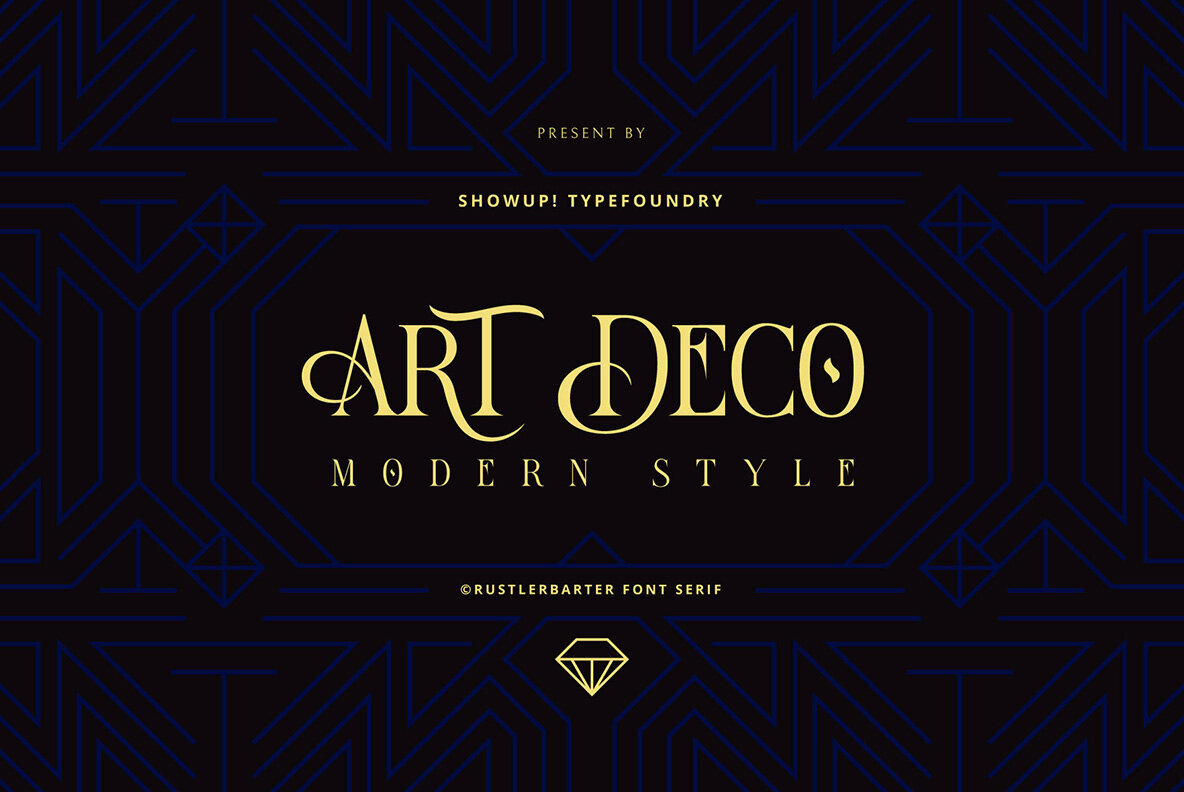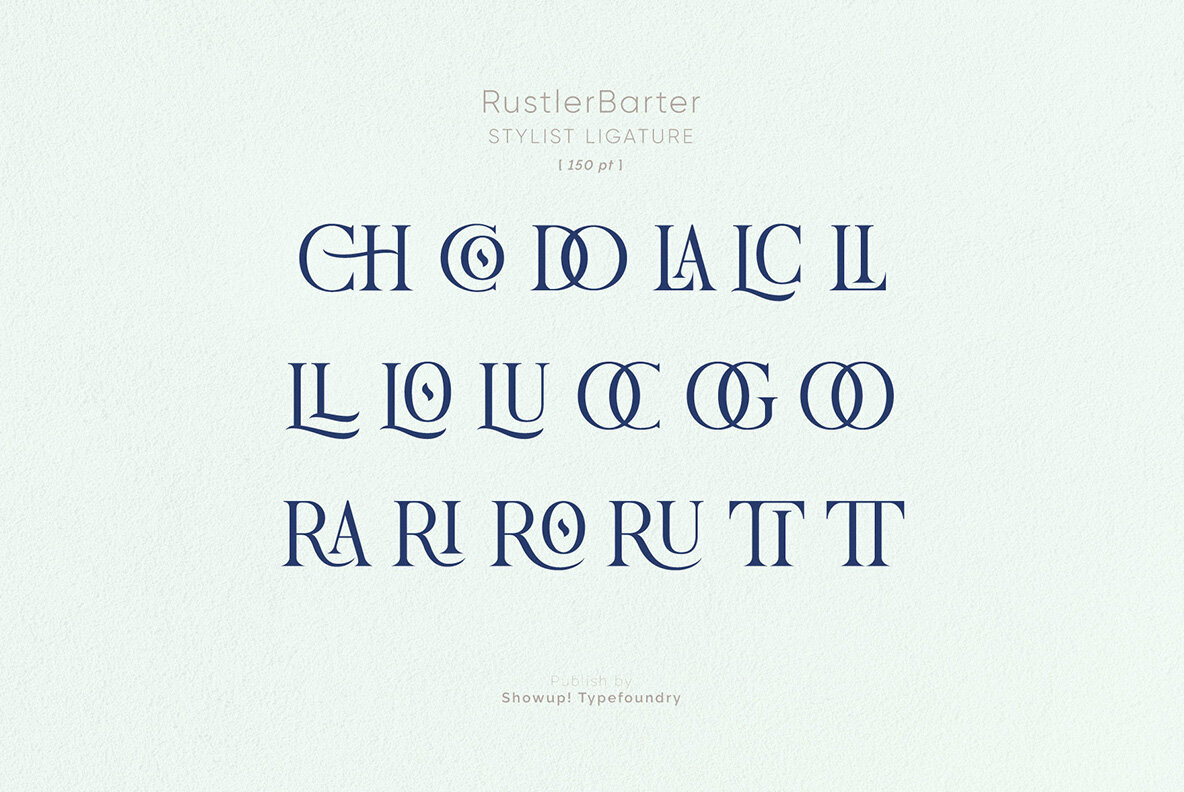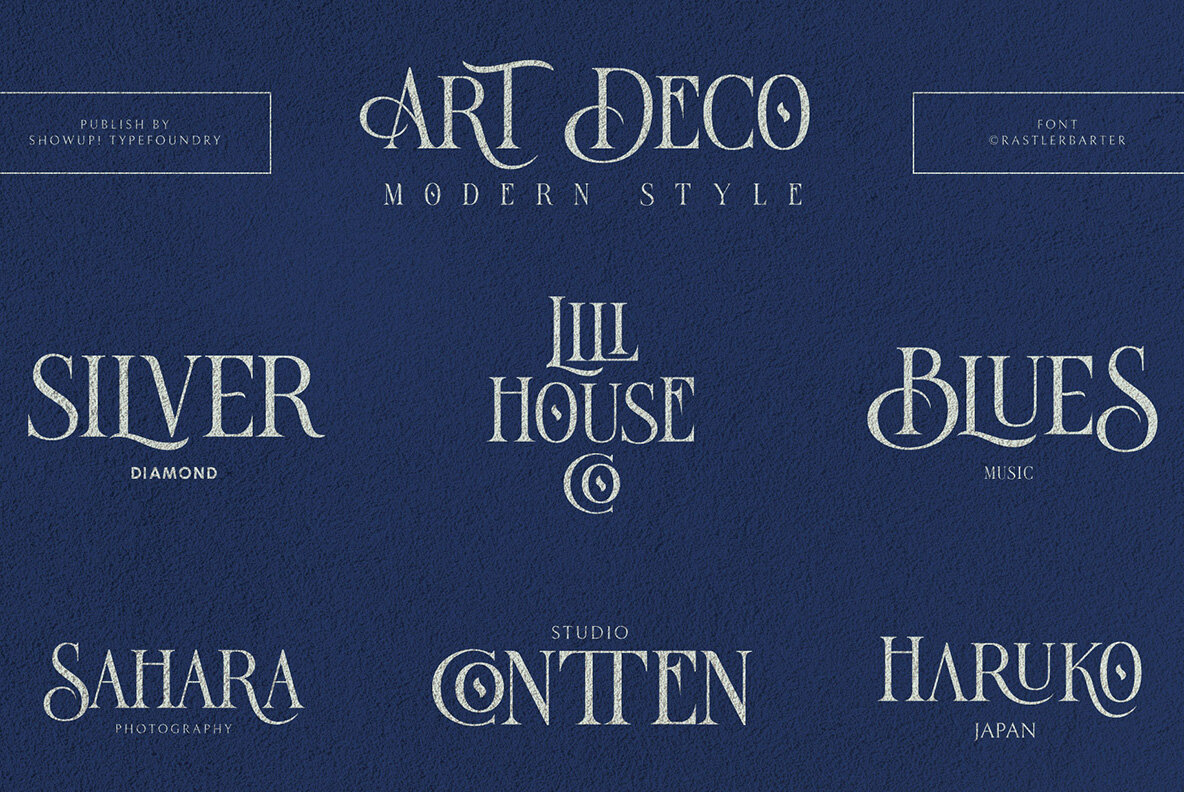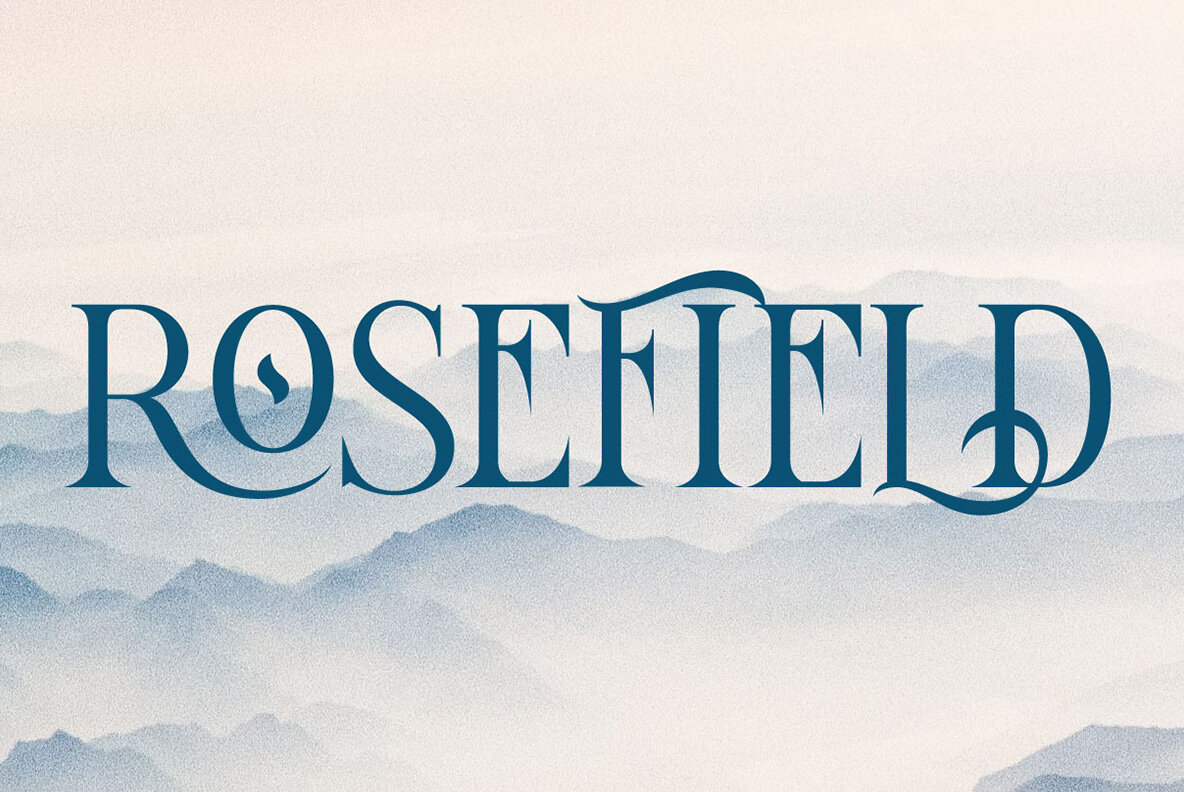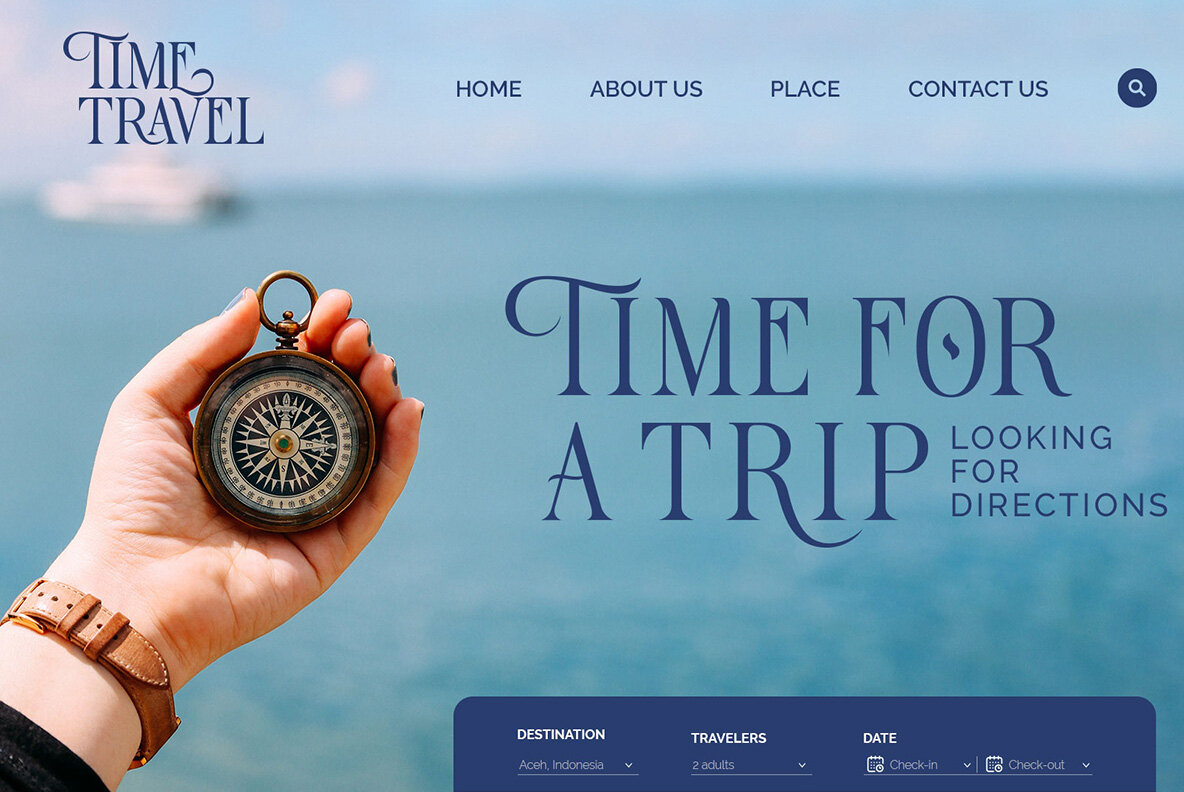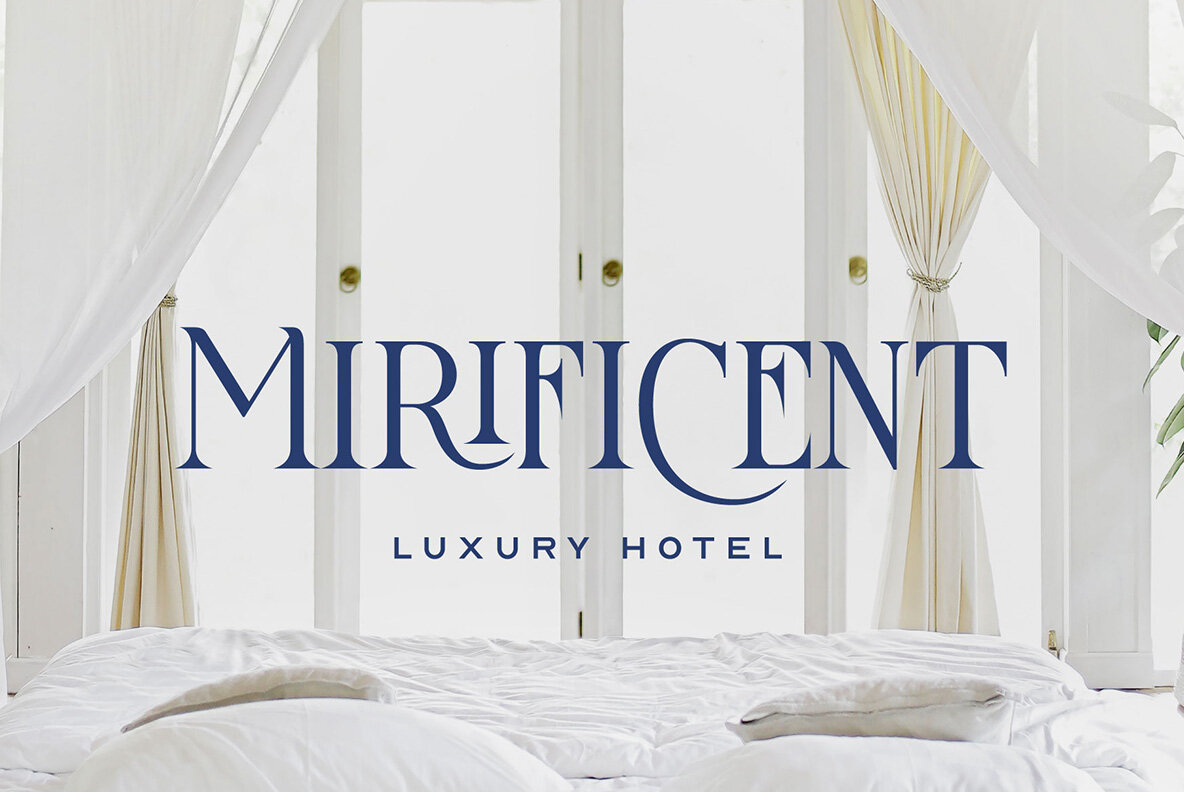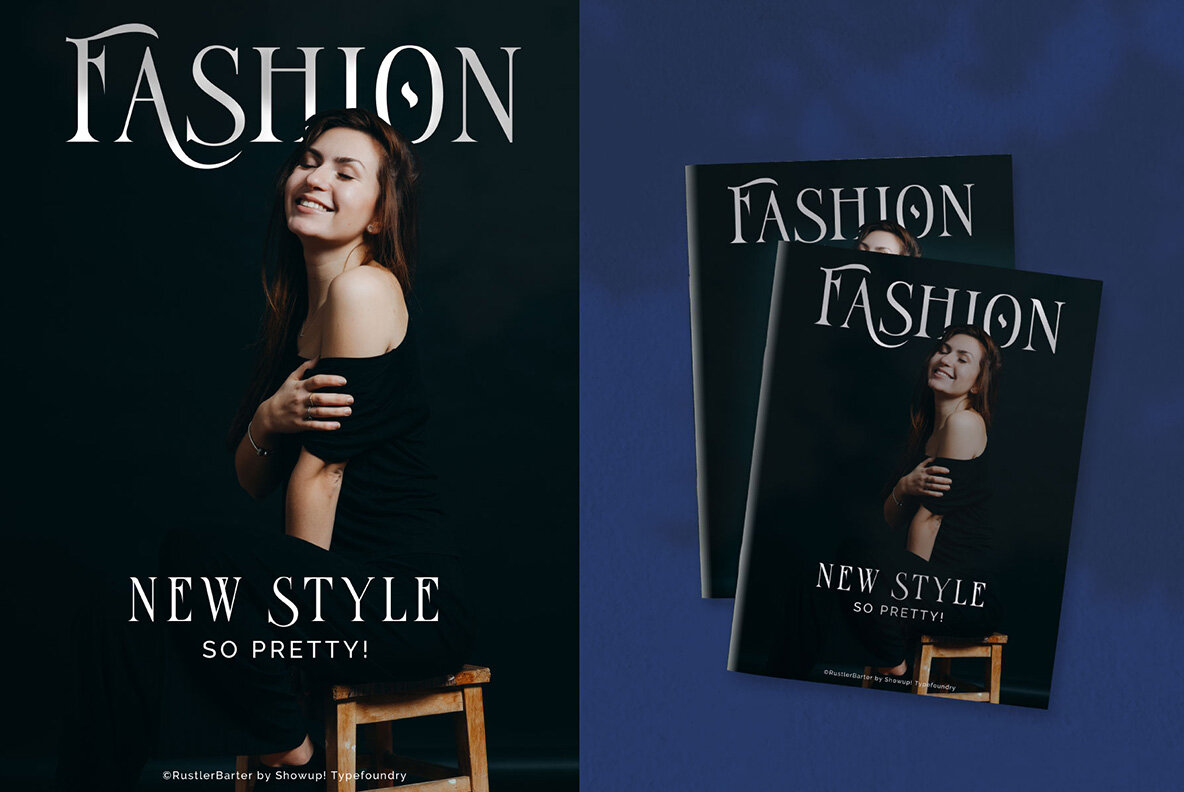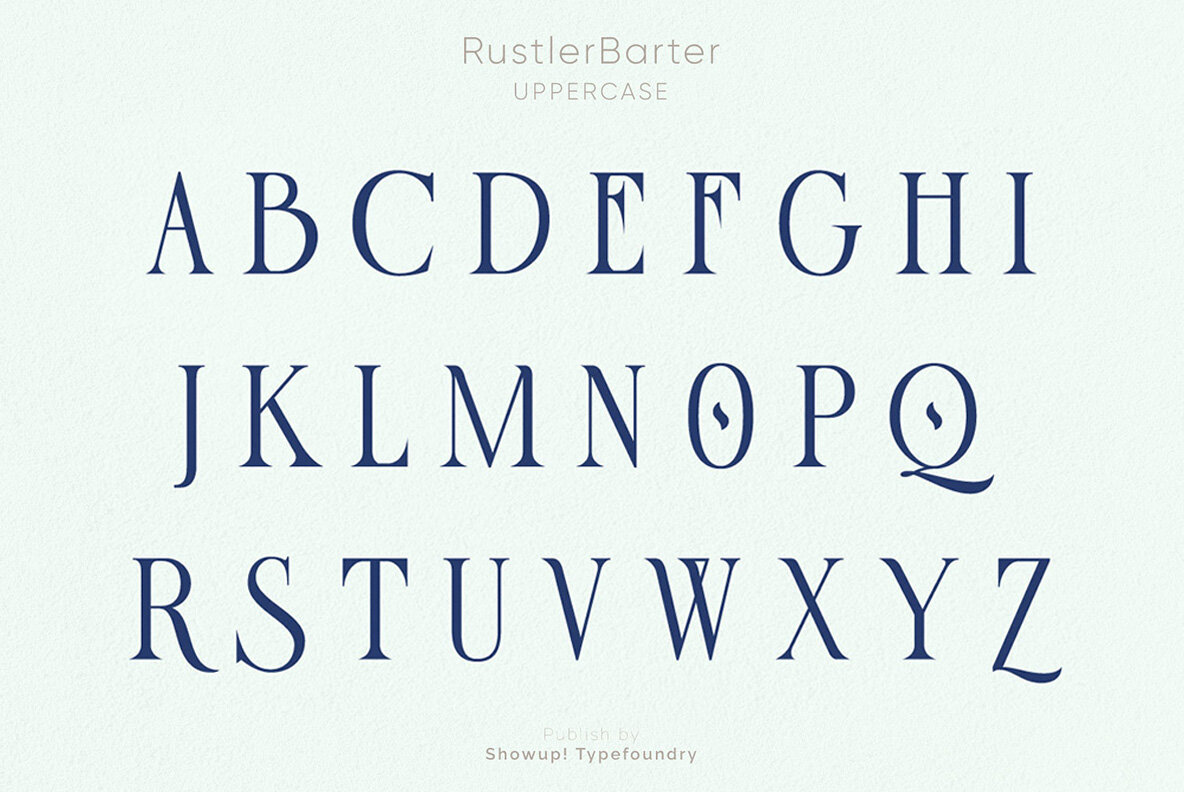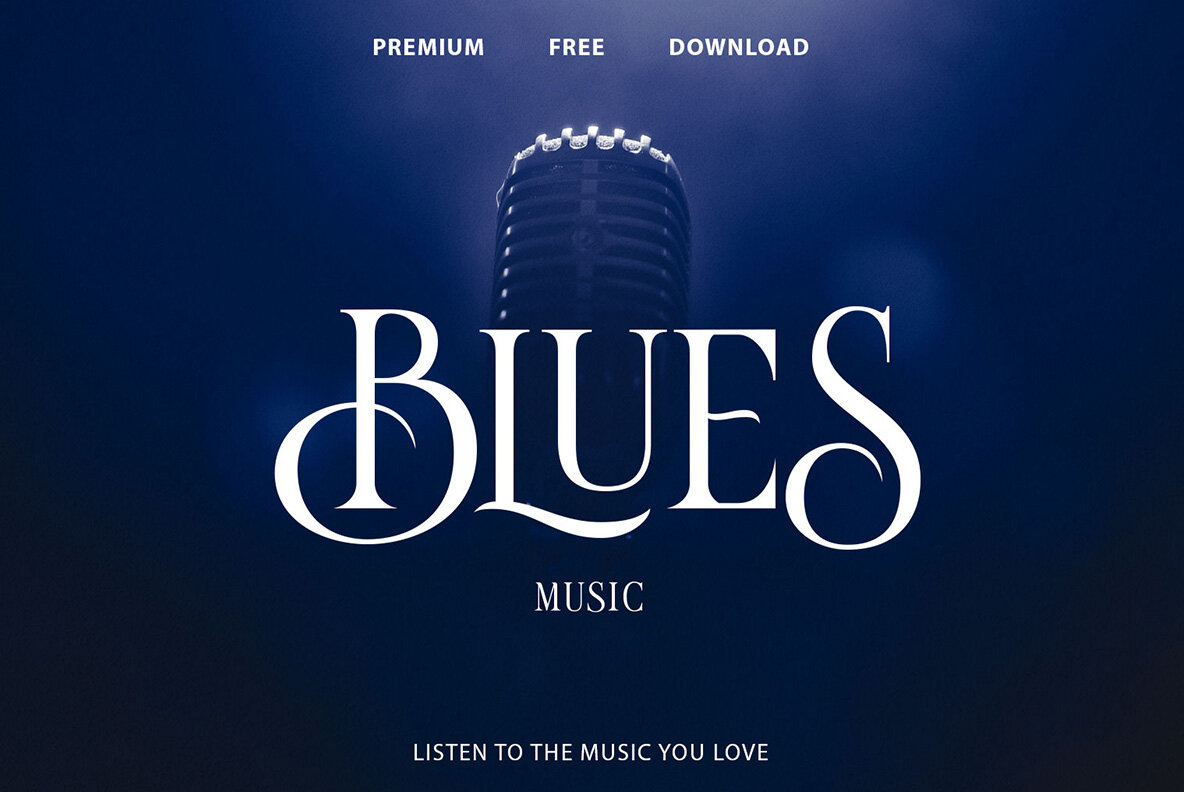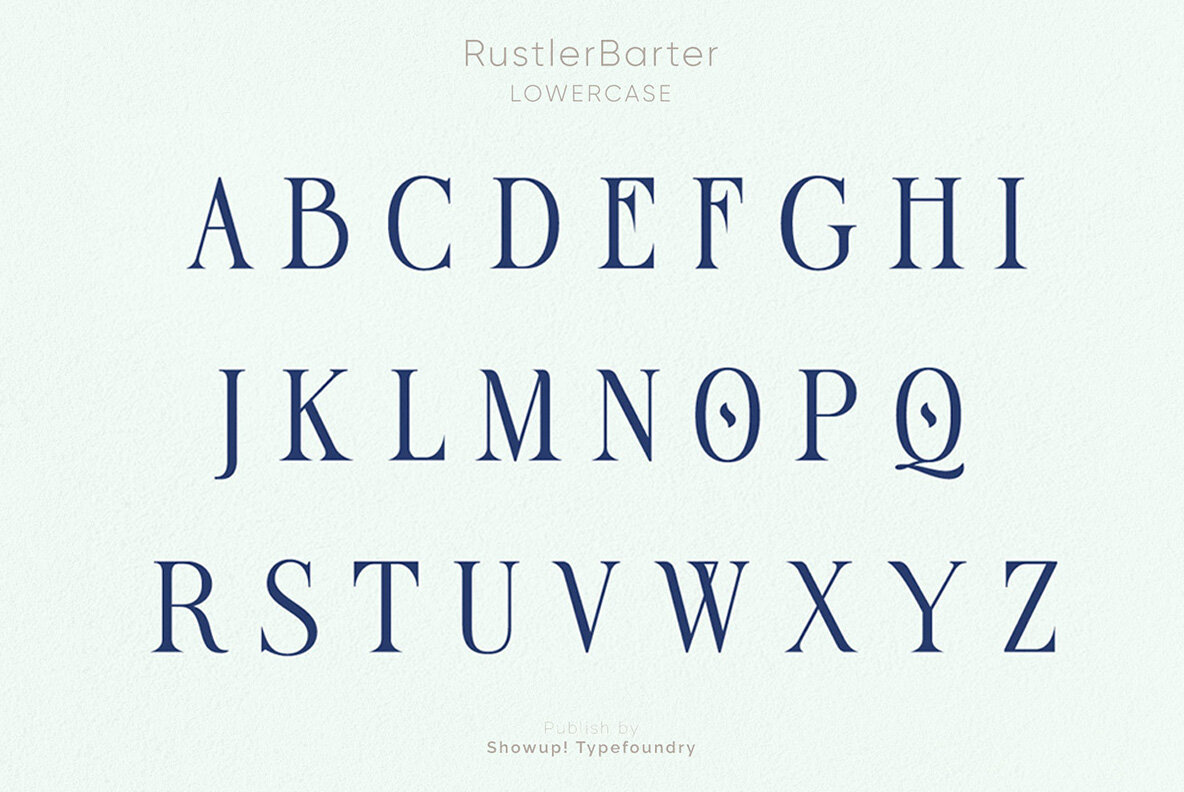
Rustler Barter: A Sophisticated Display Font
The Rustler Barter is an elegant display font drawing inspiration from the Art Deco era. It exudes sophistication and luxury, making it ideal for headlines, logos, and advertising applications.
Perfect for Diverse Applications
Add a touch of sophistication and luxury to your designs with Rustler Barter. It is perfect for:
• Headlines
• Logos
• Advertising
• Brochures
• Posters
• T-shirts